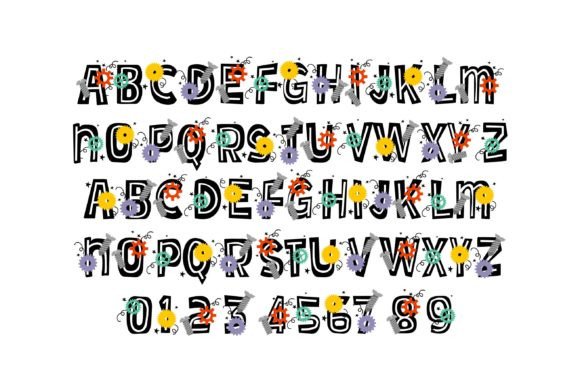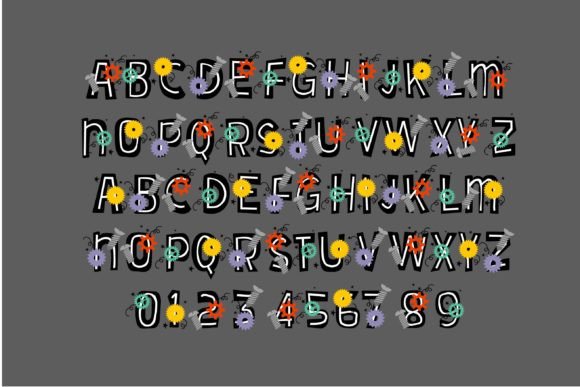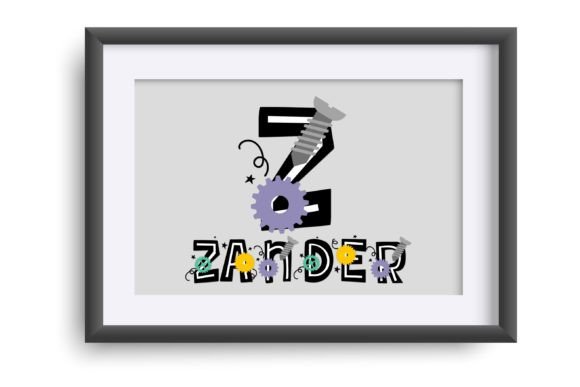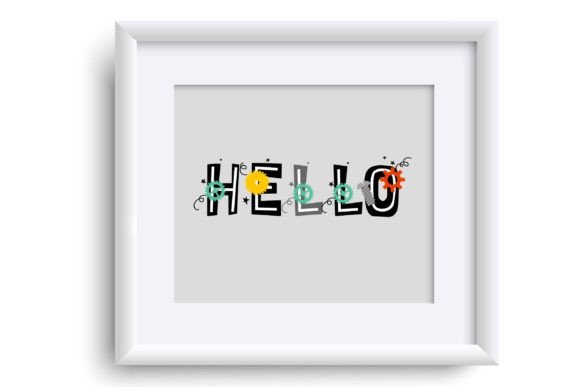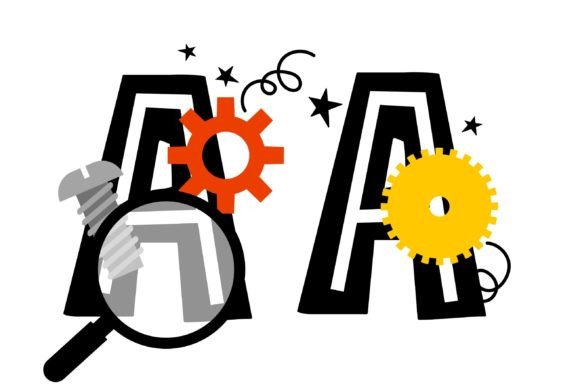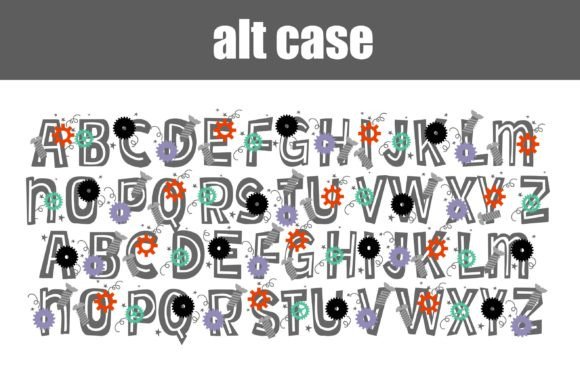
Adding a Touch of Industrial Chic to Your Designs
As designers, we’re always on the lookout for the perfect font to give our projects that extra oomph. Whether it’s a bold sans serif or a elegant script, the right font can make all the difference in bringing our vision to life. I recall one particularly creative moment when I stumbled upon Dad’s Nuts and Bolts Font, a full-color font featuring nuts, bolts, and springs on blocky sans serif lettering. It was love at first sight – I knew I had to incorporate it into my next design project.
Dad’s Nuts and Bolts Font is a game-changer for designers looking to add an industrial touch to their work. With its unique blend of functionality and whimsy, it’s perfect for branding, packaging, and advertising projects. And the best part? It’s incredibly versatile, allowing designers to experiment with different color combinations and styles. Whether you’re a seasoned pro or just starting out, Dad’s Nuts and Bolts Font is a valuable addition to any designer’s toolkit.
Dad’s Nuts and Bolts Font Key Features
- Font Family: Dad’s Nuts and Bolts
- Unique Characteristics: Distressed, hand-drawn design with a nostalgic feel
Dad’s Nuts and Bolts Font Review
I’ll be honest, I was a bit skeptical when I first saw Dad’s Nuts and Bolts Font. But, after taking some time to play with it, I have to say that it’s a unique and fun font.
- The font’s eclectic feel is perfect for creative projects or those that need a bit of whimsy.
- The bold and italic versions are great for adding emphasis or creating visual interest.
- The font is highly customizable, allowing users to tweak the size, spacing, and color to their heart’s content.
- The font may not be suitable for formal or professional projects, as its playful nature may come across as unprofessional.
- The font’s bold and italic versions can sometimes be a bit too bold or italic, making them difficult to read in certain situations.
I’d say that Dad’s Nuts and Bolts Font is a solid choice for creative projects or those looking for a fun, playful font. While it may have some limitations, its unique feel and high level of customizability make it a great addition to any designer’s toolkit.
Dad’s Nuts and Bolts Font is a great choice for designs that require a playful, industrial feel. Some common use cases include:
- Industrial or mechanical-themed designs
- Children’s educational materials
- DIY or crafting projects Alternatives to Dad’s Nuts and Bolts Font
Industrial Gothic
Industrial Gothic is a sans-serif font with a strong, industrial feel. It’s perfect for projects that require a rugged, no-nonsense aesthetic. It’s similar to Dad’s Nuts and Bolts Font in its bold, utilitarian style, but has a more refined and polished appearance.
Rockwell is a slab-serif font with a sturdy, dependable feel. It’s great for projects that require a sense of stability and trustworthiness. Like Dad’s Nuts and Bolts Font, Rockwell has a strong, industrial feel, but is more elegant and sophisticated in its design.
Trade Gothic
Trade Gothic is a sans-serif font with a strong, modern feel. It’s perfect for projects that require a sense of innovation and progress. While it shares some similarities with Dad’s Nuts and Bolts Font in its bold, utilitarian style, Trade Gothic has a more streamlined and minimalist appearance.
Clarendon
Clarendon is a slab-serif font with a strong, classic feel. It’s great for projects that require a sense of tradition and heritage. Like Dad’s Nuts and Bolts Font, Clarendon has a sturdy, dependable appearance, but is more elegant and refined in its design.